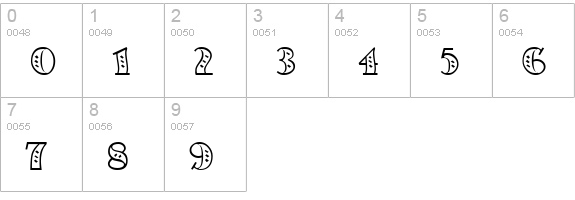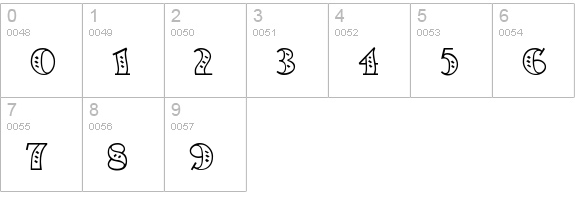
FiveOhTwo Font Details
FiveOhTwo font is a stylish and modern typeface that perfectly blends elegance with a touch of playfulness. This versatile font features clean lines and bold curves, making it suitable for a wide range of design projects, from branding to social media graphics. With its unique character and charm, FiveOhTwo font adds a sophisticated yet approachable feel to any text. The best part? FiveOhTwo font is available for free download at FontsMarket.com! Whether you're a designer looking to elevate your projects or someone who simply appreciates beautiful typography, this font is a must-have addition to your collection. Don't miss out on the opportunity to enhance your designs with the distinctive style of FiveOhTwo font. Download it today and start creating stunning visuals that stand out from the crowd.